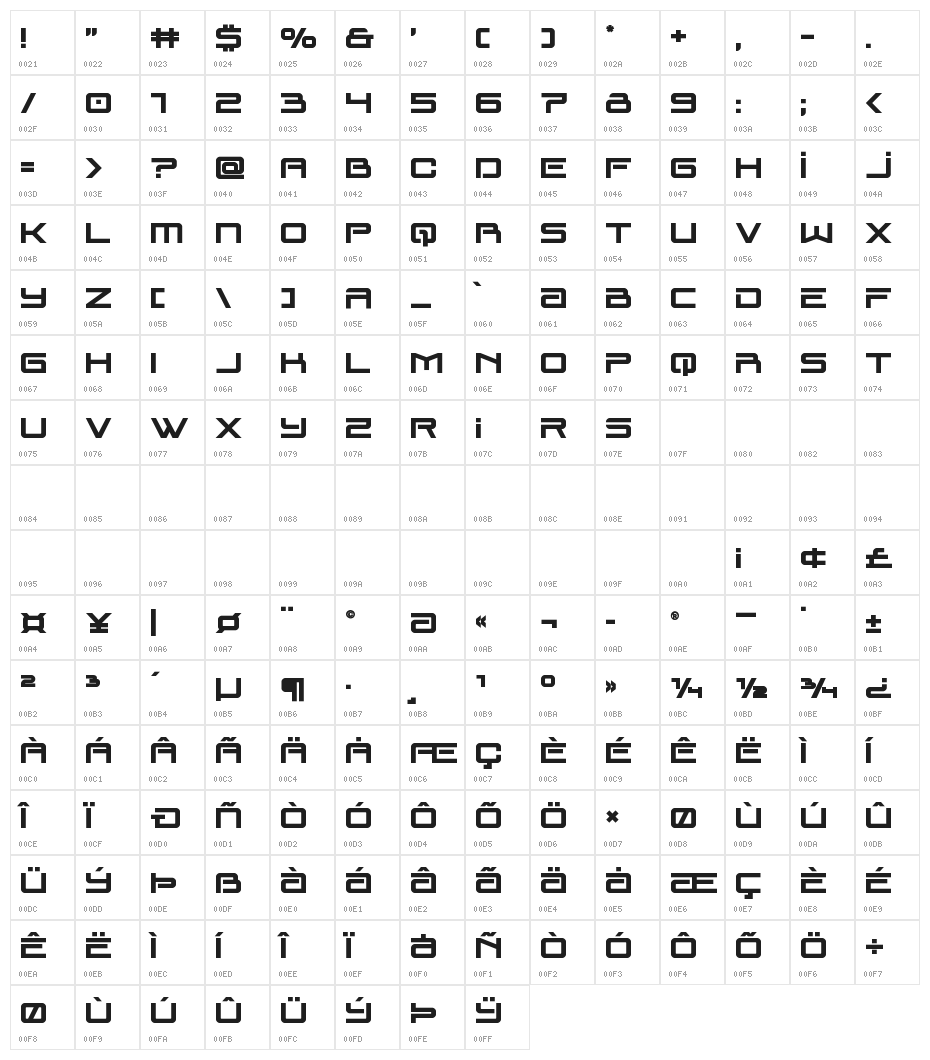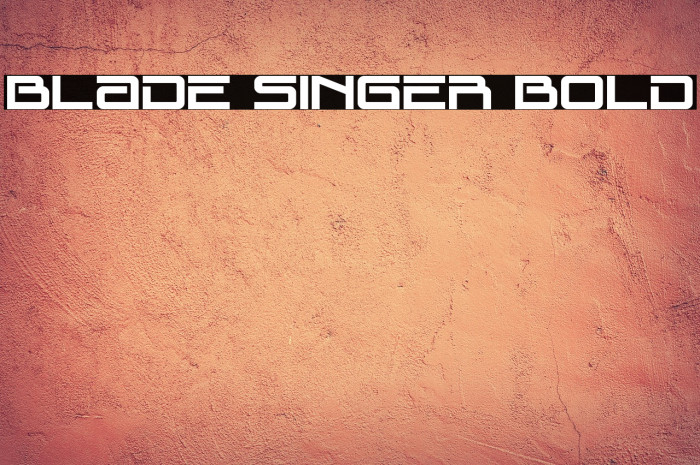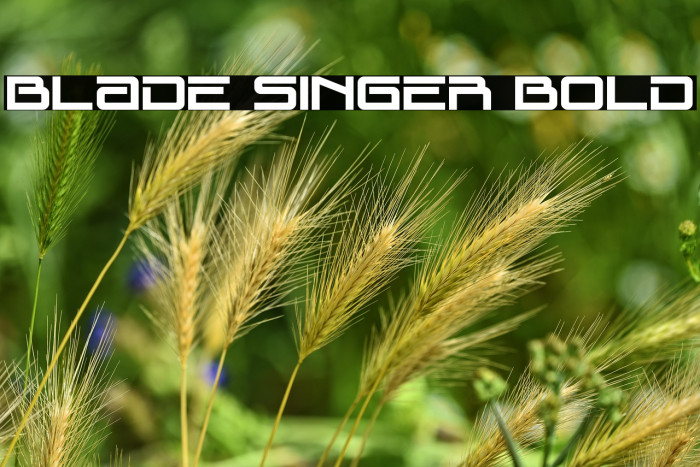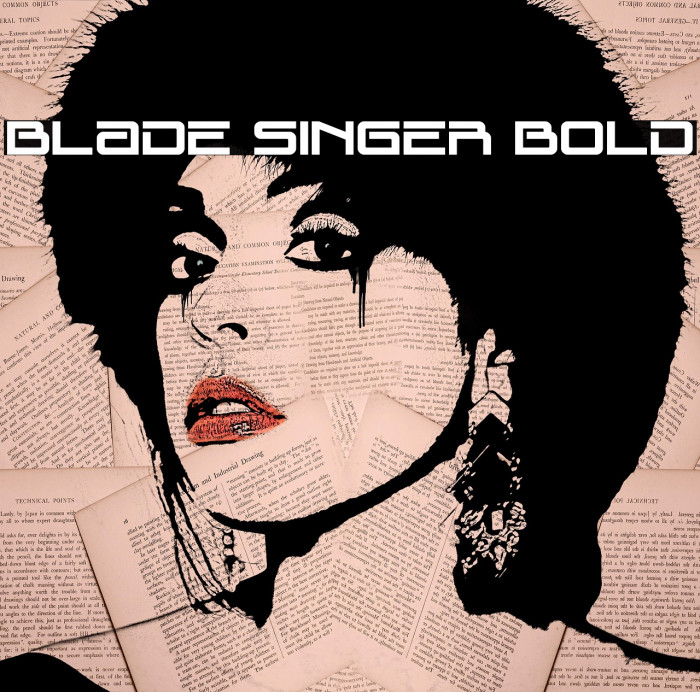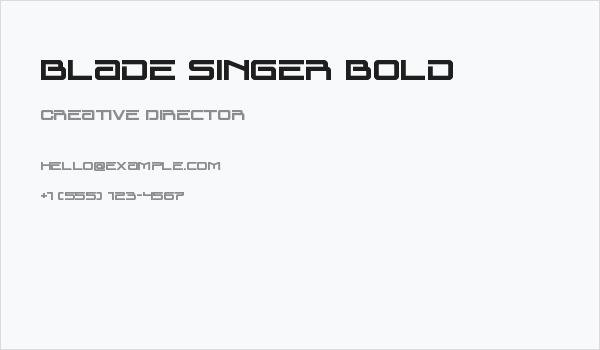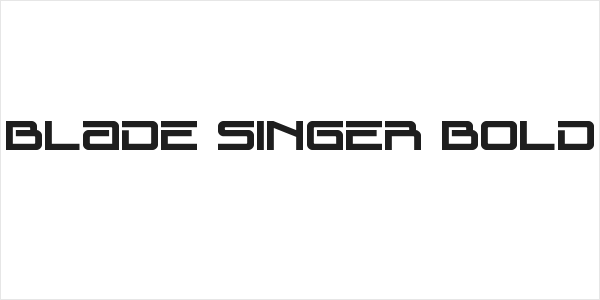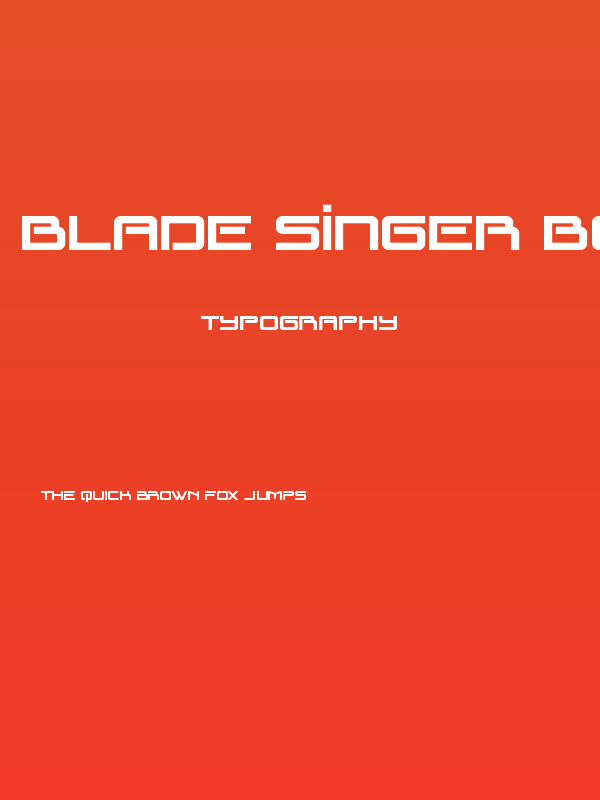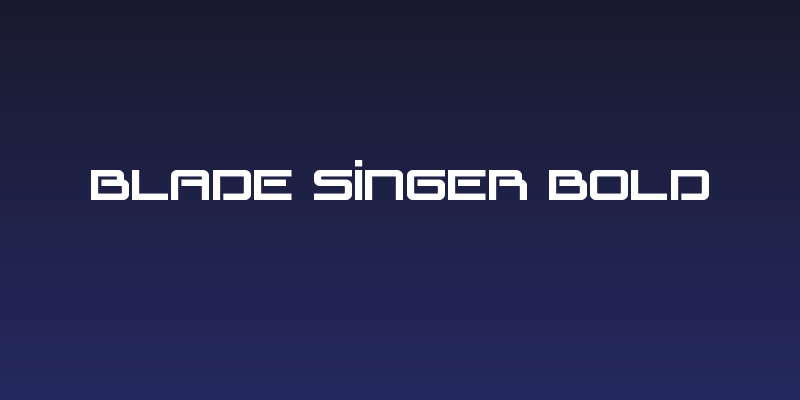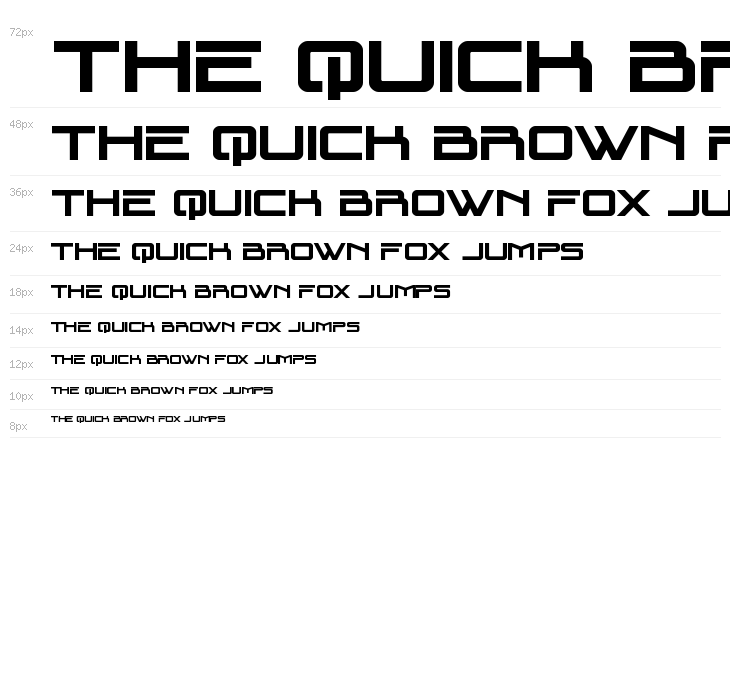
Blade Singer Bold Font
✎ Futuristic
| Vorgeschlagene Projekte | Ideal for technology branding, sci-fi themes, modern advertising, and video game titles. |